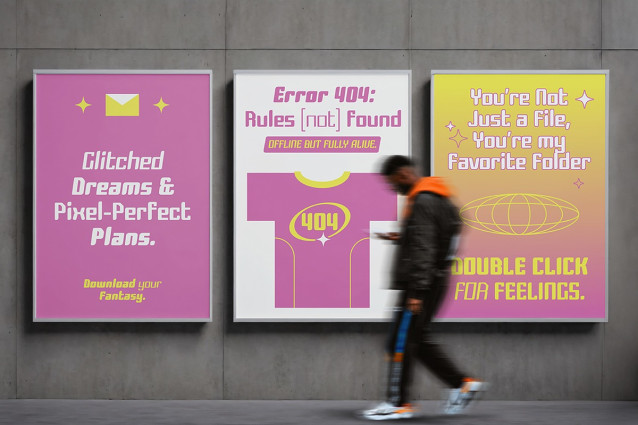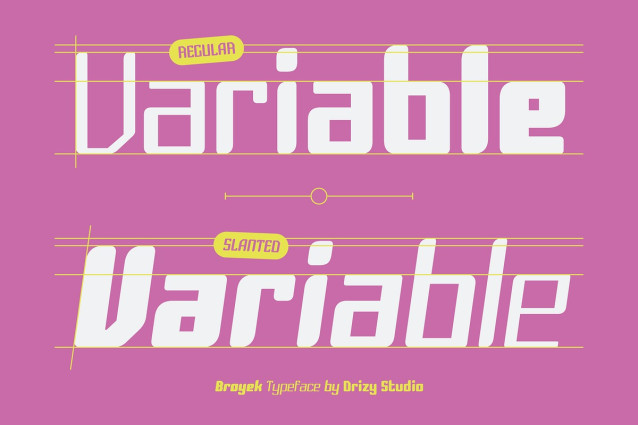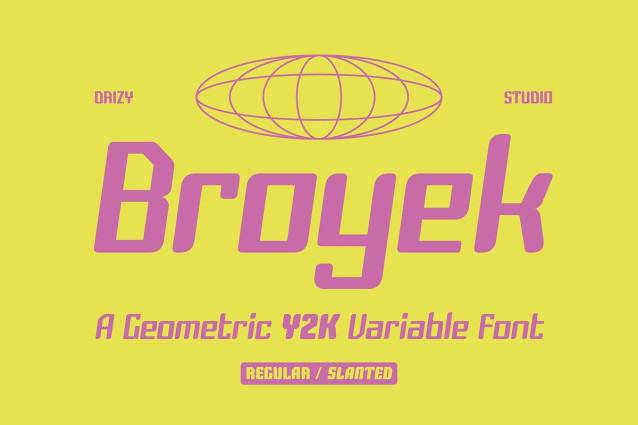
Broyek Font
Broyek Font is a variable geometric display font that blends Y2K futurism with sleek modular design. Its sharp angles and tech-inspired forms evoke the digital aesthetic of the early 2000s, while variable styles offer flexibility for dynamic compositions. Perfect for branding, posters, and digital interfaces, Broyek adds a striking, futuristic edge to any creative project.